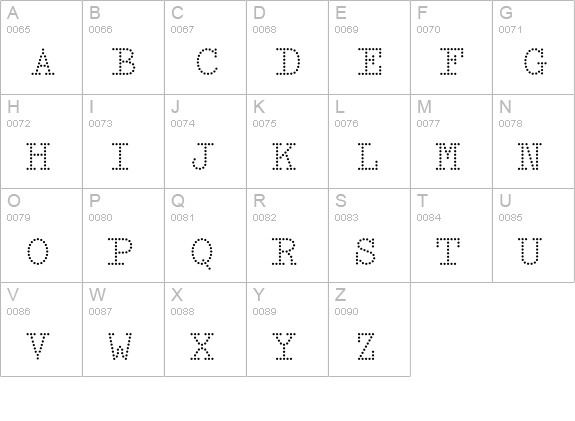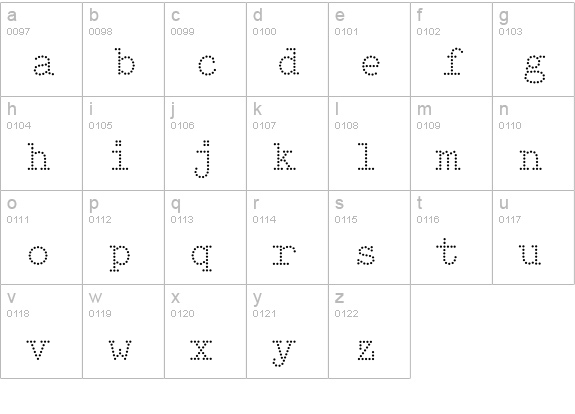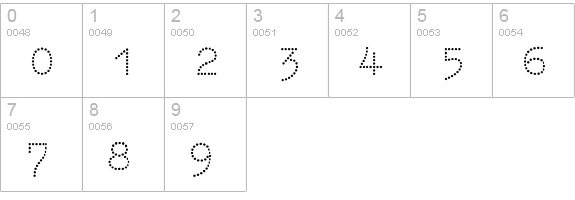
Intimo-Two Font Details
Intimo-Two font is a captivating and versatile typeface that effortlessly combines elegance with a touch of modernity. Its sleek and refined letterforms are meticulously crafted to bring a sense of sophistication to any design project. Whether it's for a logo, branding material, or editorial layout, Intimo-Two font emanates a sense of timeless beauty. With its clean lines and graceful curves, this font exudes a sense of harmony and balance. Its well-spaced characters ensure legibility even at smaller sizes, making it perfect for both print and digital applications. Whether used in headings or body text, Intimo-Two font commands attention and adds a touch of class to any design. But what truly sets Intimo-Two font apart is its availability. This remarkable font is freely available to download at FontsMarket.com, a leading platform for high-quality fonts. This means that designers, creatives, and enthusiasts alike can access this stunning typeface without any cost. It's an incredible opportunity to enhance your design projects without breaking the bank. Intimo-Two font's versatility shines through in its numerous weights and styles, allowing for endless creative possibilities. Whether you want to convey a sense of elegance or add a contemporary twist to your designs, this font has got you covered. Its wide range of options ensures that you'll find the perfect style to suit your needs. So why wait? Enhance your designs with the enchanting allure of Intimo-Two font. Download it for free today at FontsMarket.com and unlock a world of design possibilities.